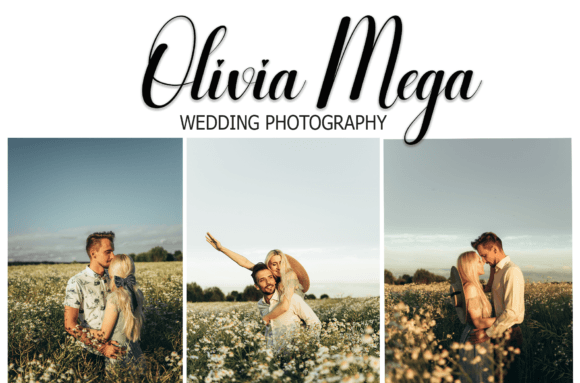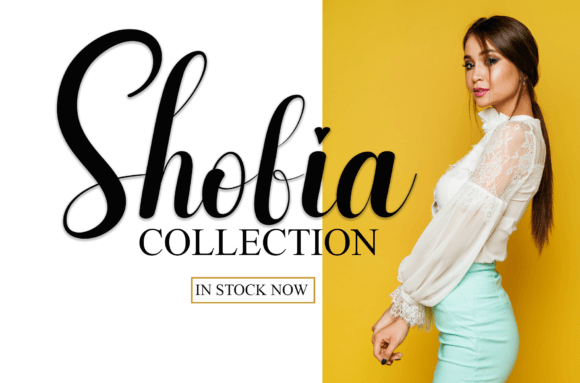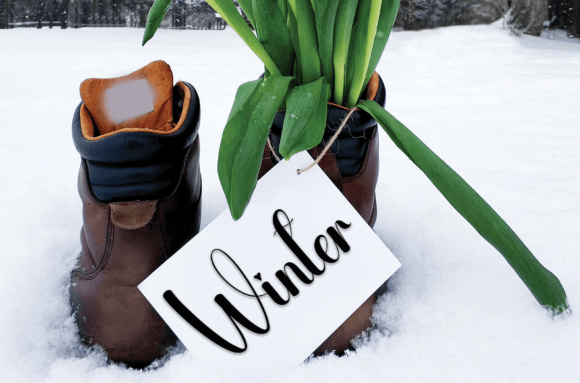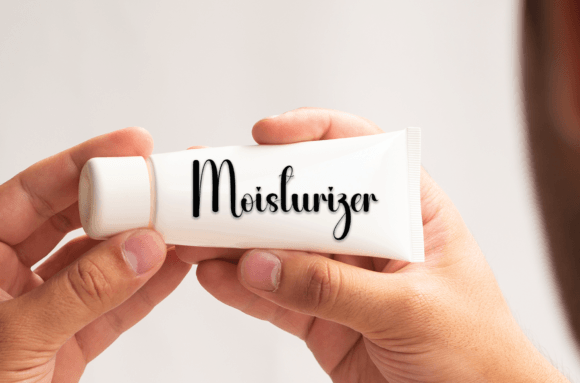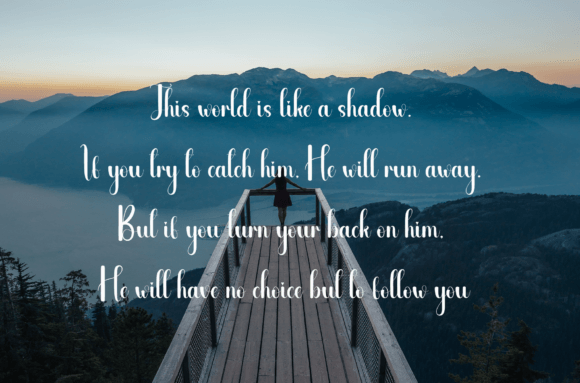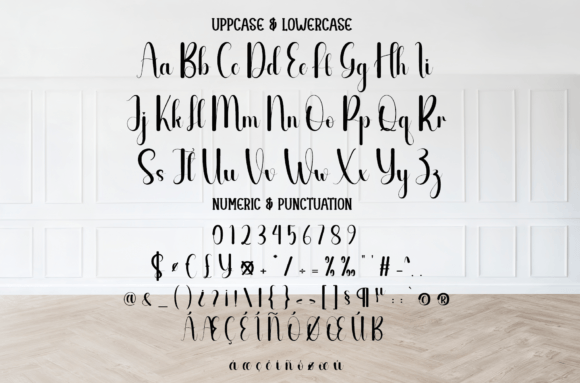
Introduction to Letter Space Font Font
Fonts play a crucial role in design, and the Letter Space Font font is a typeface that brings both character and versatility to any project. Whether you’re working on a branding project, a website, or a print design, the Letter Space Font font offers a unique style that can elevate your work.
Letter Space is a sweet and friendly handwritten display font.
Cute and fun, this font is ideal for writing wedding invitations, cards, or any other design that might need a fun touch .
Key Features of Letter Space Font Font
Why Choose Letter Space Font Font?
The Letter Space Font font is more than just a typeface – it’s a design tool that helps you communicate your message with style and clarity. Its unique character set and versatile design make it suitable for a wide range of applications, from elegant invitations to bold headlines.
With its carefully crafted letterforms and balanced proportions, the Letter Space Font font ensures readability and visual appeal across all mediums.
What makes Letter Space Font font special?
The Letter Space Font font stands out with its unique design, exceptional readability, and versatility across various design applications.